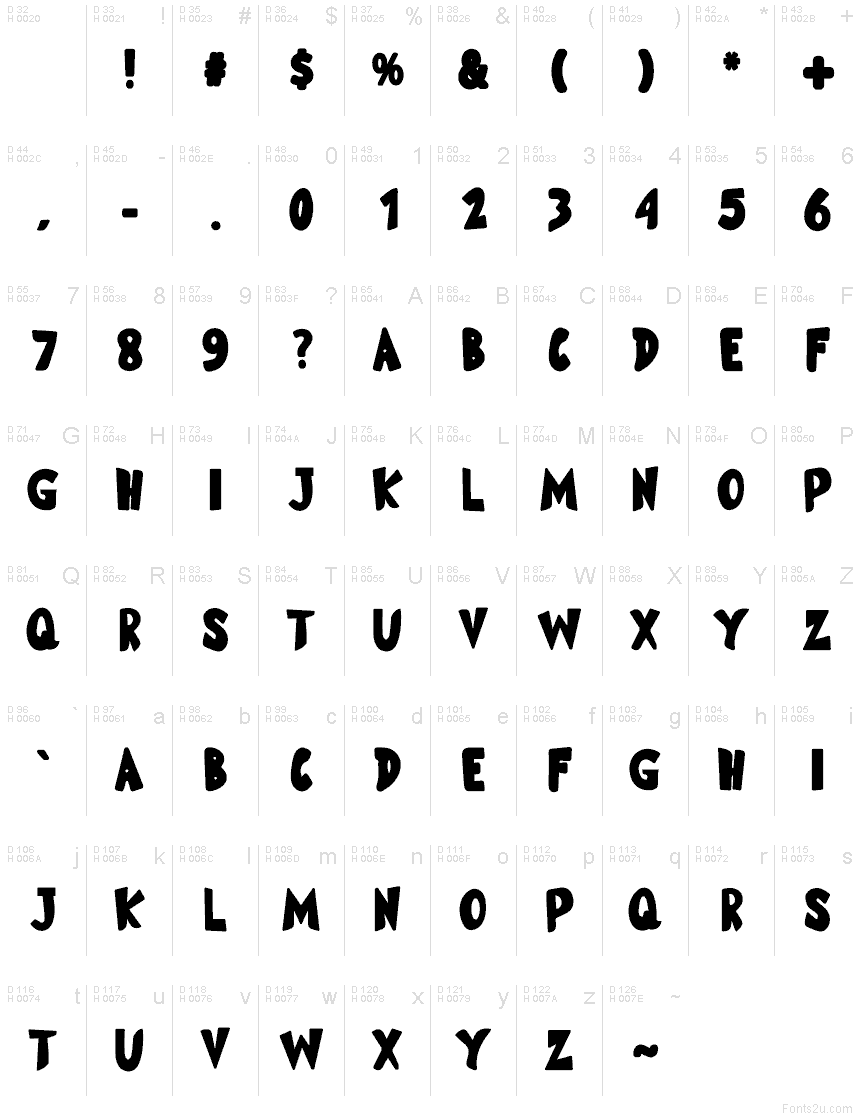
Girink
Girink font by Bilqis Studio is a free cartoon display font that solves a familiar headache: getting big, friendly energy without losing clarity. Its chunky, inky shapes feel hand-cut and lively, yet the rhythm stays steady so words snap into view at a glance. The letters land with a soft, squishy fullness, while crisp wedge moments keep it from turning mushy.
Using Girink, headlines read loud and lovable—great for kids’ book covers, snack packaging, birthday invites, YouTube thumbnails, game titles, toy branding, and stickers. This free font shines at oversize scales; for small copy, pair it with a thin geometric sans and let Girink handle the shout.